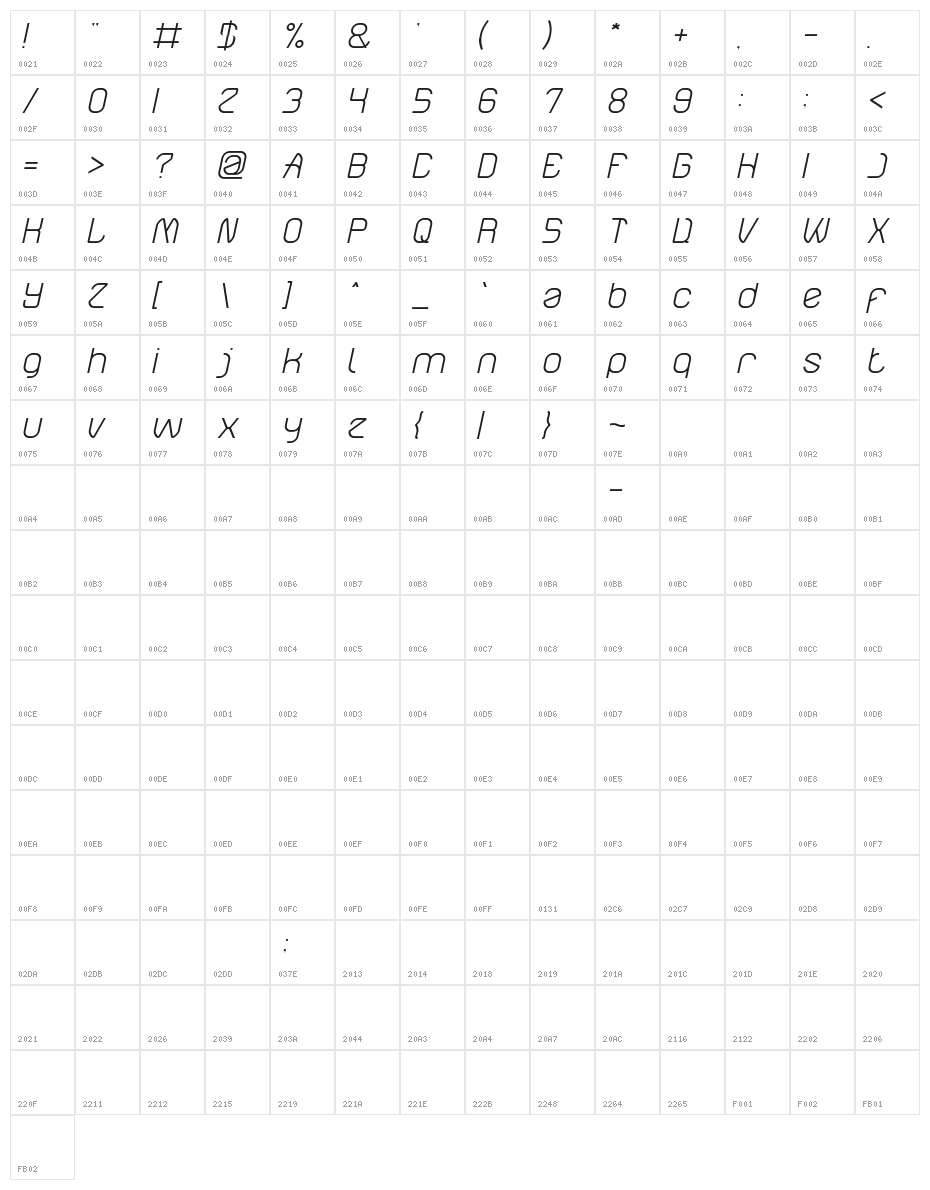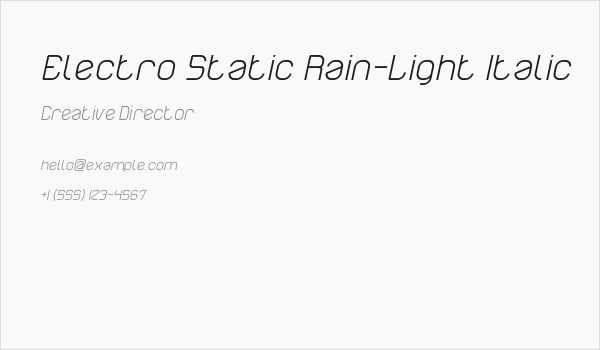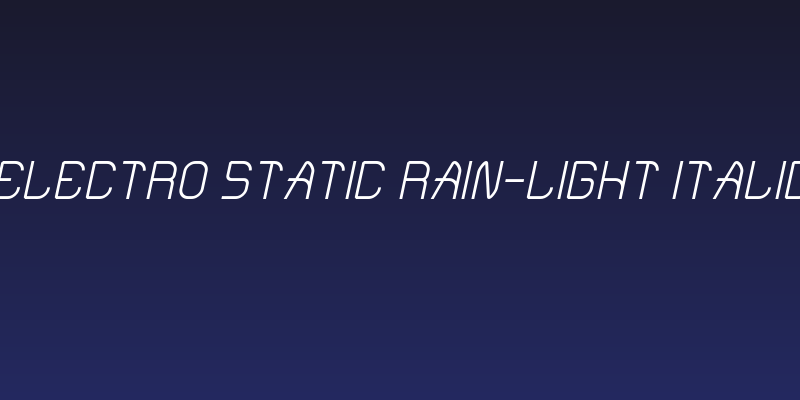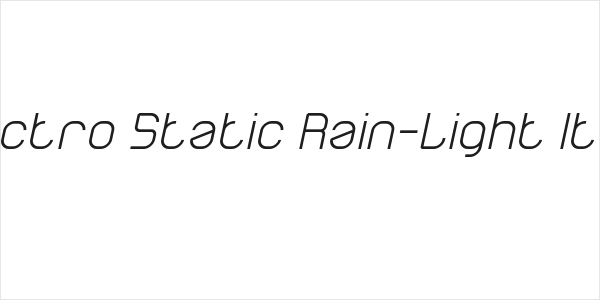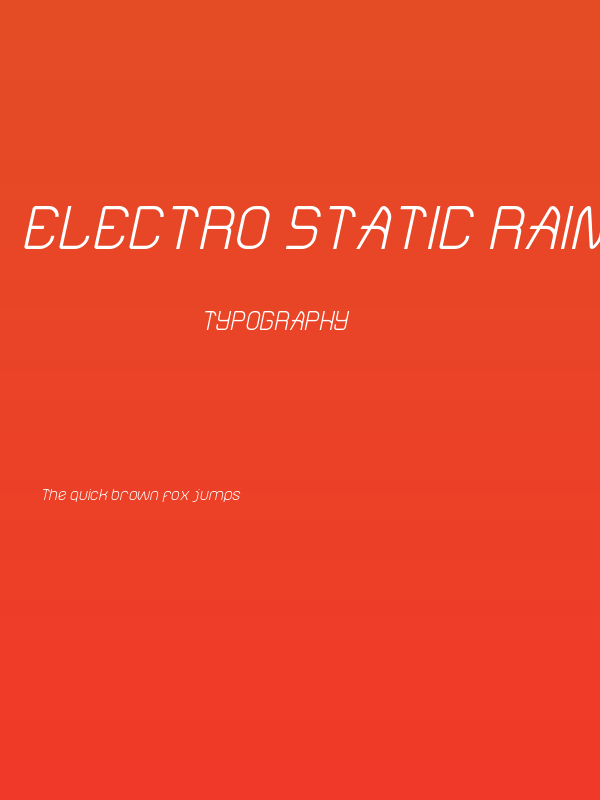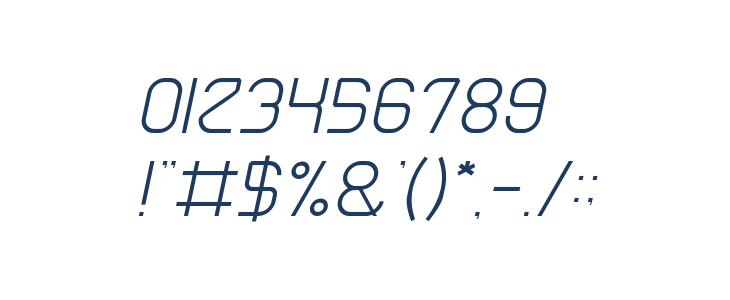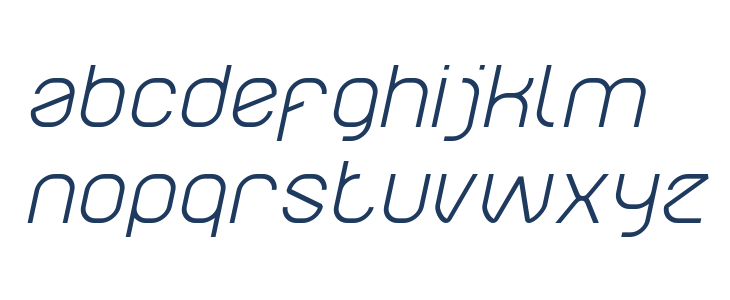
Electro Static Rain-Light Italic Font
Electro Static Rain-Light Italic Description
This font features a sleek, modern design with a light and airy feel. The characters are slightly italicized, giving them a dynamic and forward-leaning appearance. The strokes are consistent in thickness, contributing to a low contrast look. The overall style is clean and minimalistic, making it suitable for contemporary design projects. The spacing between characters is normal, ensuring readability while maintaining a stylish aesthetic. The font's geometric shapes and smooth curves add a touch of elegance and sophistication.
| Proposed Projects | Ideal for tech branding, modern websites, digital interfaces, and sleek product packaging. |